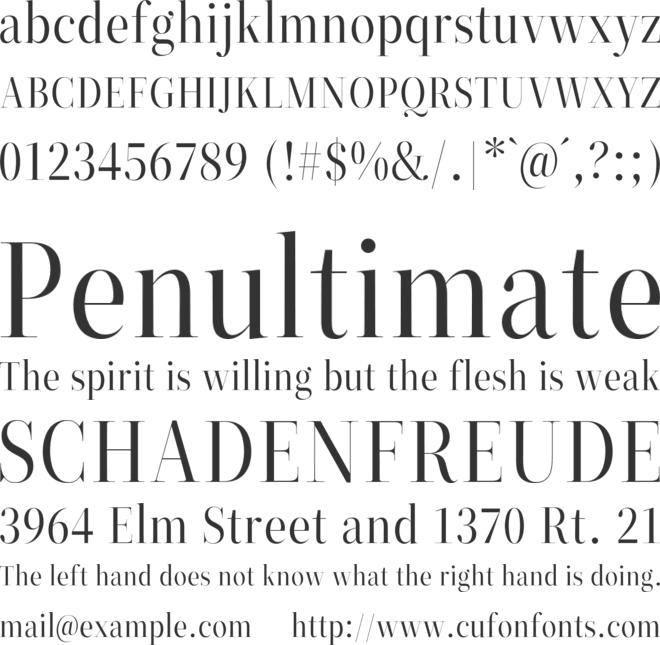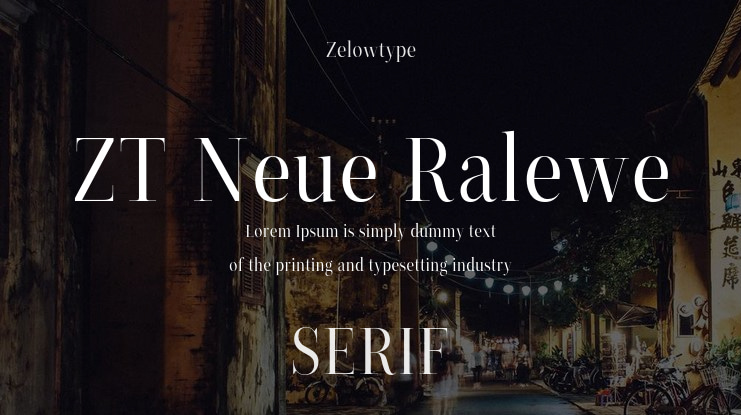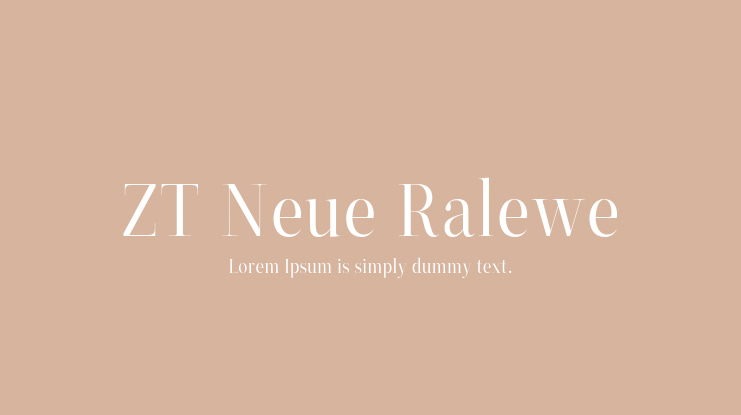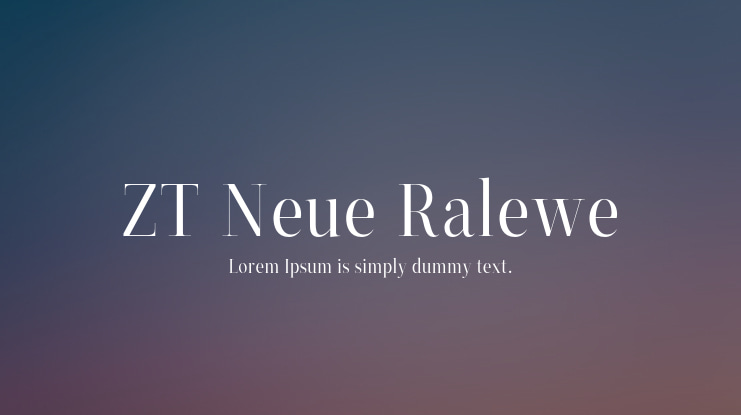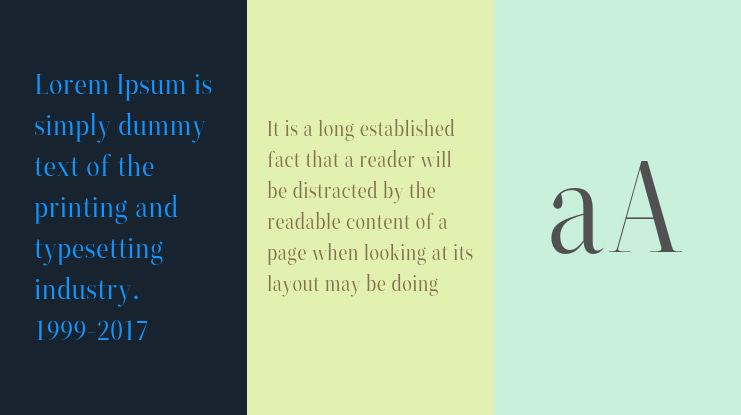
ZT Neue Ralewe Font Family
Immerse yourself in the world of luxurious design with ZT Neue Ralewe, a serif font that elevates your creations from ordinary to extraordinary. This font goes beyond just being a set of characters; it is a representation of:
- 90 different styles ranging from the delicate Thin to the bold Black, each adding its own unique touch. - 26 distinctive characters, each telling its own story of individuality. - Over 700 glyphs, providing a myriad of expressive possibilities for your designs. - Various condensed to expanded variations, giving you a versatile canvas for creative expression. - Timeless elegance that defies passing trends, creating a legacy of sophistication. - Support for multiple languages, including Basic Cyrillic, ensuring inclusivity. - Suitable for both headlines and body text, transforming every word into poetry.